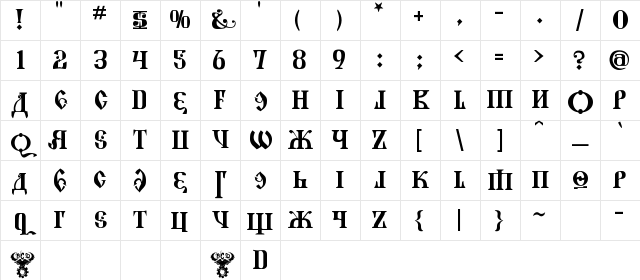
Kremlin Grand Duke Regular
Design Context for Kremlin Grand Duke
Kremlin Grand Duke is a composed and adaptable typeface that performs quietly and consistently across a wide range of design contexts.